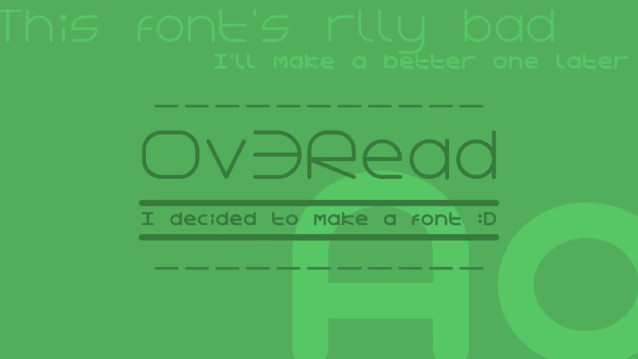
Ov3Read Font
Ov3Read Font – This is a font I felt would do well for small-scale text. I am going to make a “better” one so feedback would be very much appreciated!
NOTE: The statistics seems to have messed up – this font only properly supports English – and does NOT have support for languages like French, Arabic, Japanese etc- only a regular English keyboard has been designed in this font 😀